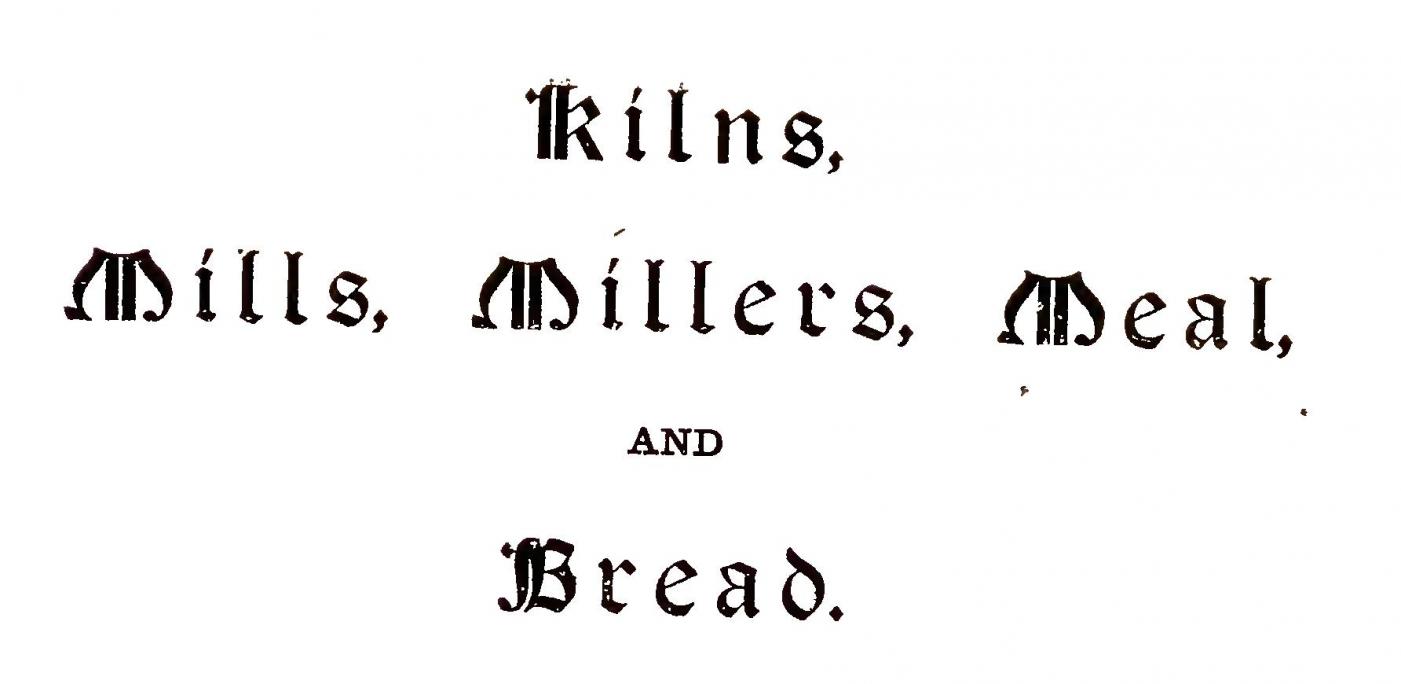
Typeface used on paper wrapper of Kilns, Millers, Meal, and Bread (1894)
Providing the year might help.  The uppercase seem to be of Lombardic style...
As stated, 1894 ["Typeface used on paper wrapper of Kilns, Millers, Meal, and Bread (1894)"]